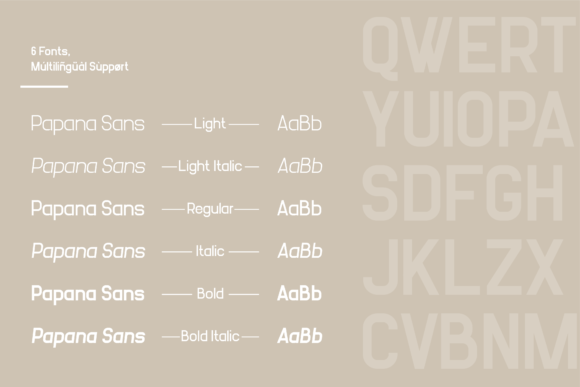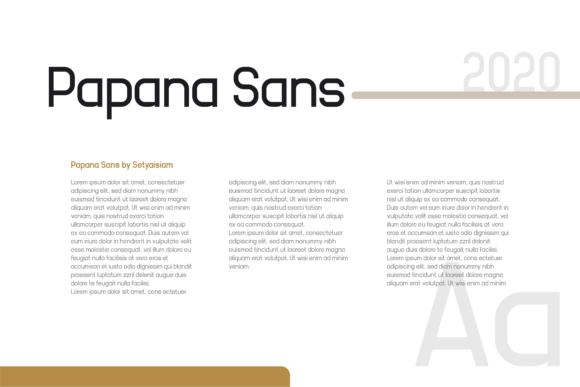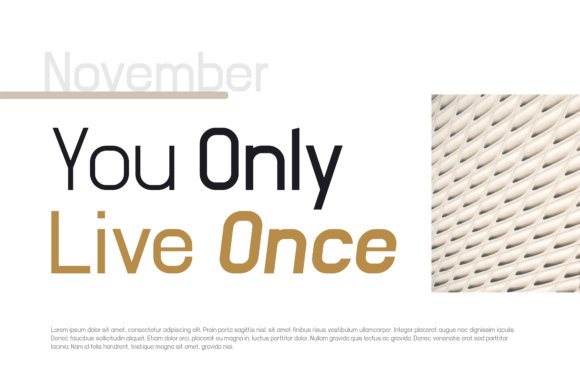
Introduction to Papana Sans Font
As a designer, you know the thrill of finding that perfect font to bring your creative project to life. It’s like stumbling upon a hidden treasure that instantly elevates your design from good to great. For me, that treasure was the Papana Sans Font – a sleek, modern sans serif font that added a touch of sophistication to my latest web design project.
With its high-quality, clean lines and unique aesthetic, Papana Sans Font is the perfect design resource for any creative project. Whether you’re working on a business card, brochure, or website, this font is sure to make your design stand out. And the best part? You can download it for free, giving you the flexibility to experiment with different designs without breaking the bank.
Key Features of Papana Sans Font
- High-quality design resource ideal for creative projects and professional applications.
- Features a clean and modern sans-serif design with a transparent background, allowing for seamless integration with any background image or color.
- Includes a wide range of characters, including uppercase and lowercase letters, numbers, and punctuation marks, making it suitable for various languages.
- Perfect for use in logos, headings, body text, and other design elements where a clean and modern sans-serif font is required.
Honest Review: Papana Sans Font
As a designer, I’m always on the lookout for high-quality fonts that can elevate my creative projects. The Papana Sans Font caught my eye, and I’m excited to share my honest review with you.
What works well: ✨ The Papana Sans Font has a clean and modern design that works well for both digital and print projects. It’s a great addition to any designer’s toolkit, and I appreciate that it’s available for free download. The font also features a transparent background, making it easy to use with various design elements.
- ✨ High-quality design that works well for digital and print projects
- ✨ Transparent background for easy use with various design elements
Limitations: ⚠️ While the Papana Sans Font is a great addition to any designer’s toolkit, it’s not suitable for all projects. The font is quite modern, so it may not be the best choice for traditional or vintage-inspired designs.
Overall impression: I’m impressed with the Papana Sans Font’s clean and modern design. It’s a great resource for designers who want to add a touch of sophistication to their creative projects. While it may not be suitable for all projects, it’s definitely worth considering for digital and print designs that require a modern look.
Papana Sans Font
The Papana Sans Font is a high-quality design resource that can be downloaded for free. It’s perfect for any creative project that requires a modern and sleek aesthetic. With its transparent background, this font is incredibly versatile and can be used in a variety of ways.
Tips for Getting the Most Out of Papana Sans Font
Use the Papana Sans Font in combination with other design elements to create a cohesive look. Experiment with different font sizes and colors to add depth and interest to your designs.
The Papana Sans Font is perfect for any creative project that requires a modern and sleek aesthetic. Some common use cases include:
- Presentations
- Documents
- Marketing materials